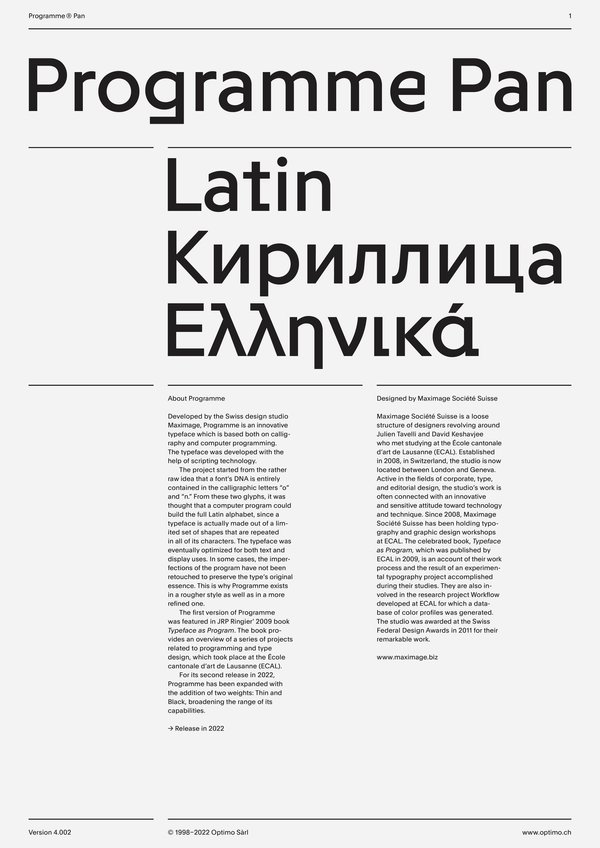
Programme Pan
Contextual Alternates
Contextual Alternates [calt]
This feature adapts the position of a glyph after its surrounding context. For instance, a dash placed between two uppercase letters or numbers will be replaced by an uppercase version of the dash, slightly higher. This feature is usually active by default in Adobe applications.
Classic Alternate letters and symbols
Stylistics Set [ss01]
This feature replaces glyph(s) with stylistic alternate(s).
Geometric alternate letters and symbols
Stylistics Set [ss02]
This feature replaces glyph(s) with stylistic alternate(s).
Bulgarian alternates
Stylistic Set 3 [ss03]
This feature activates alternative letters used in Bulgarian language.
Macedonian and Serbian alternates
Stylistic Set 4 [ss04]
This feature activates the alternative “be” letter used in Serbian language.
Serbian alternates [italics only]
Stylistic Set 5 [ss05]
This feature activates alternative italic letters used in Serbian language.
Alternate a
Stylistics Set [ss07]
This feature replaces glyph(s) with stylistic alternate(s).m
Alternate e
Stylistics Set [ss08]
This feature replaces glyph(s) with stylistic alternate(s).
Alternate f g j t J
Stylistics Set [ss09]
This feature replaces glyph(s) with stylistic alternate(s).
Alternate h m n r u
Stylistics Set [ss10]
This feature replaces glyph(s) with stylistic alternate(s).
Alternate r
Stylistics Set [ss11]
This feature replaces glyph(s) with stylistic alternate(s).
Alternate G
Stylistics Set [ss12]
This feature replaces glyph(s) with stylistic alternate(s).
Alternate K
Stylistics Set [ss13]
This feature replaces glyph(s) with stylistic alternate(s).
Alternate Q
Stylistics Set [ss14]
This feature replaces glyph(s) with stylistic alternate(s).
Alternate R
Stylistics Set [ss15]
This feature replaces glyph(s) with stylistic alternate(s).
Alternate S
Stylistics Set [ss16]
This feature replaces glyph(s) with stylistic alternate(s).
Alternate U
Stylistics Set [ss17]
This feature replaces glyph(s) with stylistic alternate(s).
Tabular Lining Figures
Tabular Lining Figures [tnum–lnum]
Based on the proportions of the capitals, lining figures have an invariable height. With the combination of the tabular spacing format, the width of each numeral is uniformized. This feature is useful when numerals need to all lined up. It facilitates the reading of numbers set within columns or tables. As some applications don’t have access to this feature, proportional figures are set as the default choice.
Proportional Oldstyle Figures
Proportional Oldstyle Figures [pnum–onum]
Based on the design of the lowercase, oldstyle figures have varying ascenders and descenders. Like most of the letters, each number has an appropriate width based on its shape. The combination of oldstyle figures with proportional setting generate numerals perfectly adapted for text.